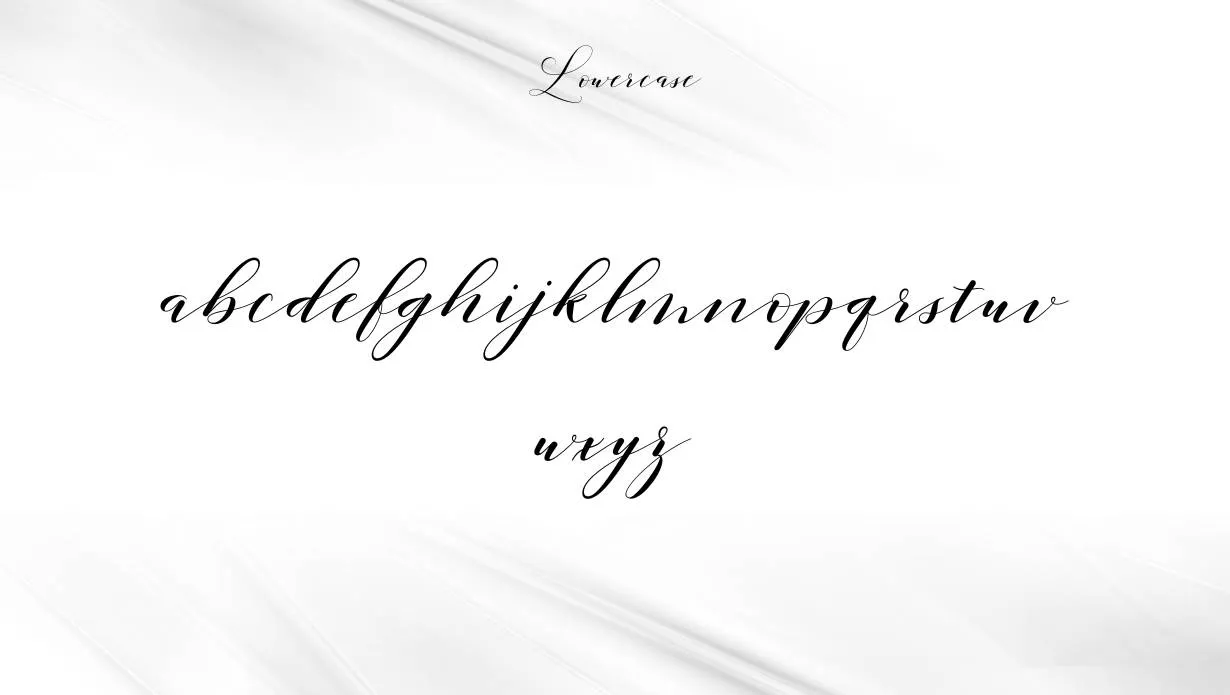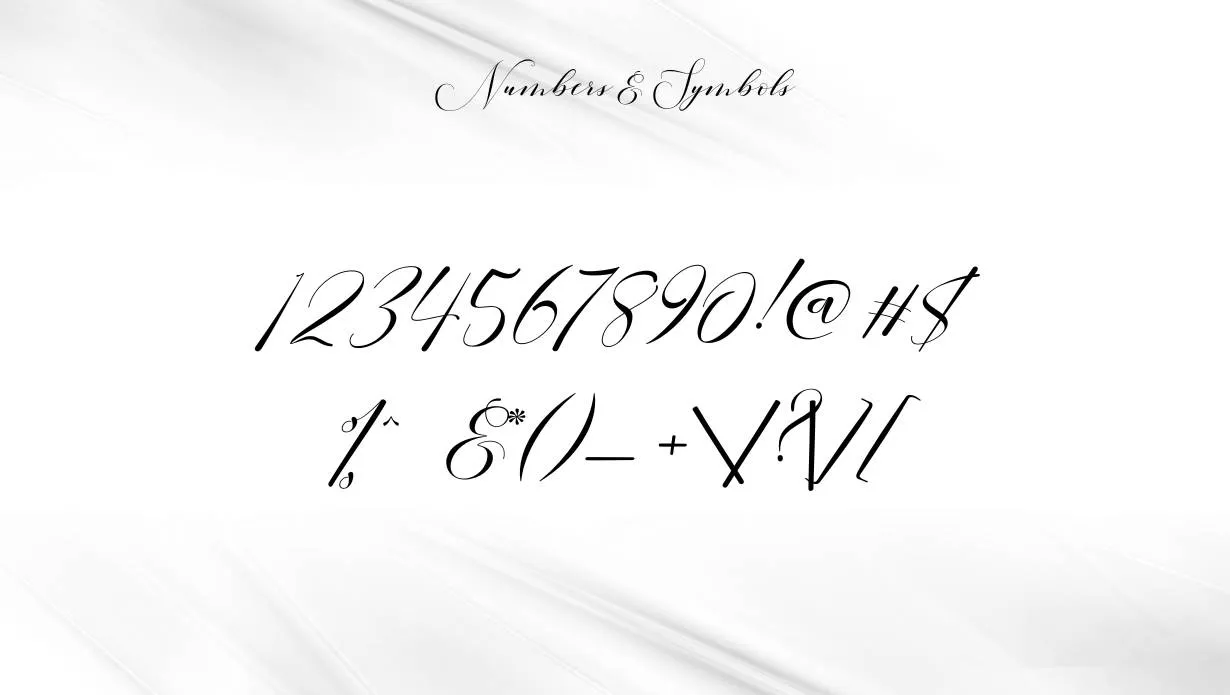
The Lucinda Script font is like fancy handwriting that adds a touch of class to your words. With smooth loops and elegant curves, it feels as if each letter is gracefully dancing across the page. This font is perfect for special messages, like writing a fancy note or designing a beautiful invitation. When you want your words to carry a sense of sophistication, the Lucinda Script font is there to make them look stylish.
Lucinda Script Font Family